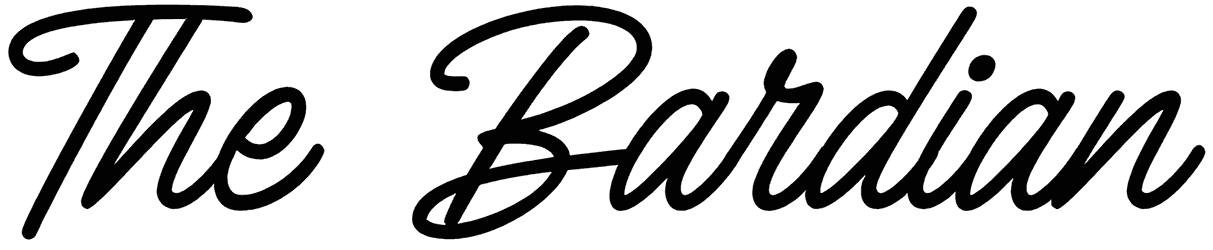
The Bardian Font
If you are in the mood for adding your own personal signature to your graphic content, such as street posters, flyers, logos, brochures, and social media posts, we offer you to utilize a magical script font like The Bardian.
Since this artwork comes with a cursive style that dances along the baseline, reading some of its letters would be a little tricky. Needless to say that this font brings a sense of drama, jauntiness, whimsicalness, and vivacity to your works.